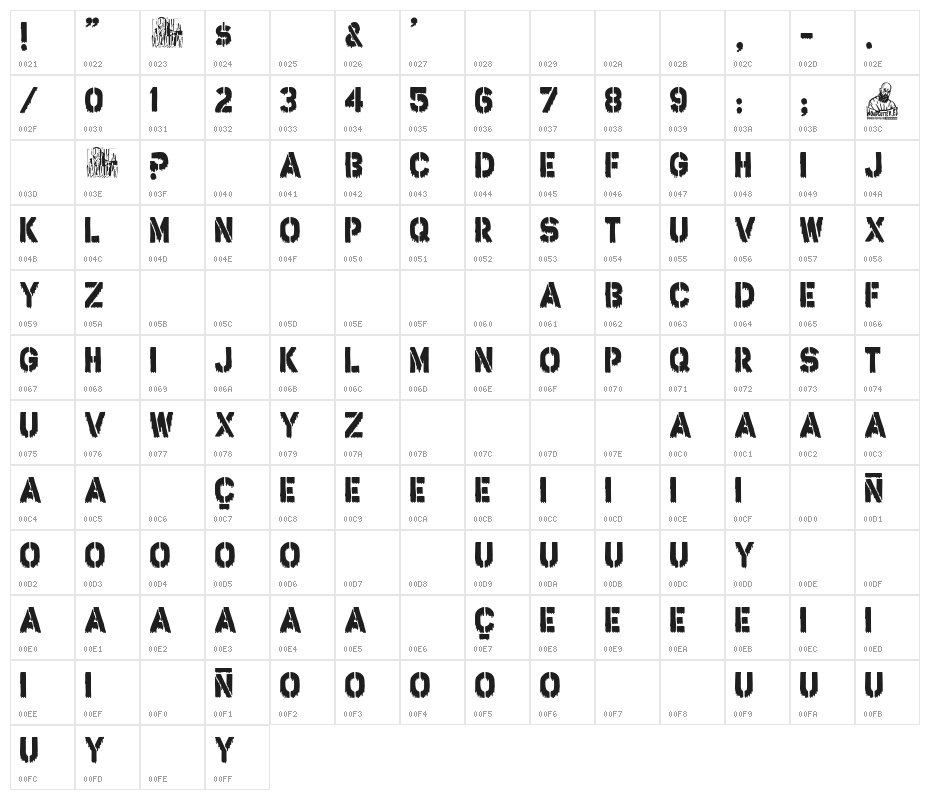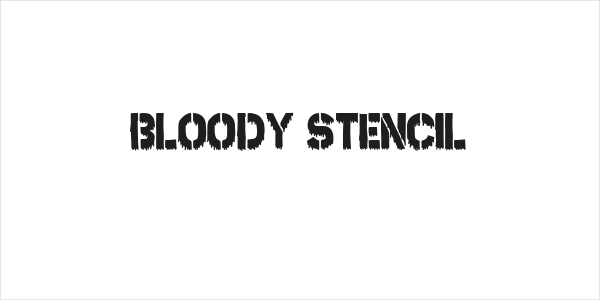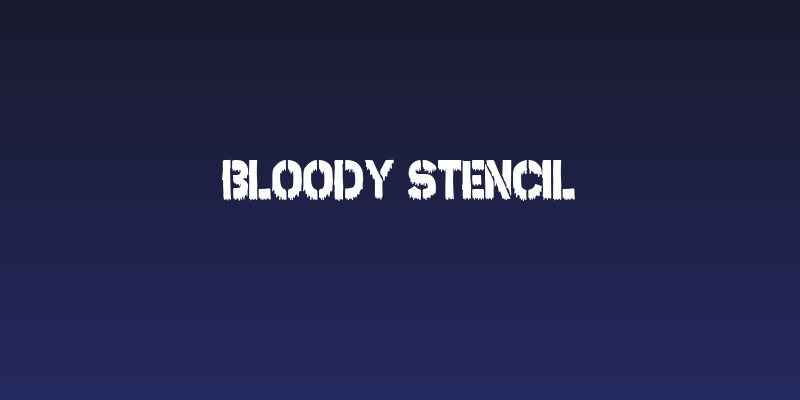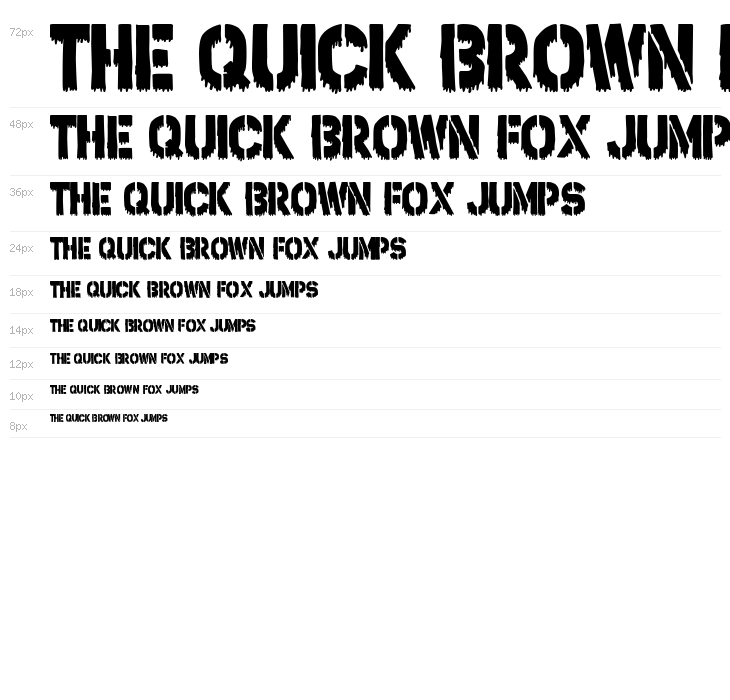
Bloody Stencil Font
Bloody Stencil Description
| Categories | Stencil |
| Overall Style | Decorative, Horror, Grunge |
| Use Case | Headlines, Posters, Logos, Event Titles |
| Proposed Projects | Halloween posters, horror movie titles, haunted house flyers, themed event graphics, spooky merchandise. |